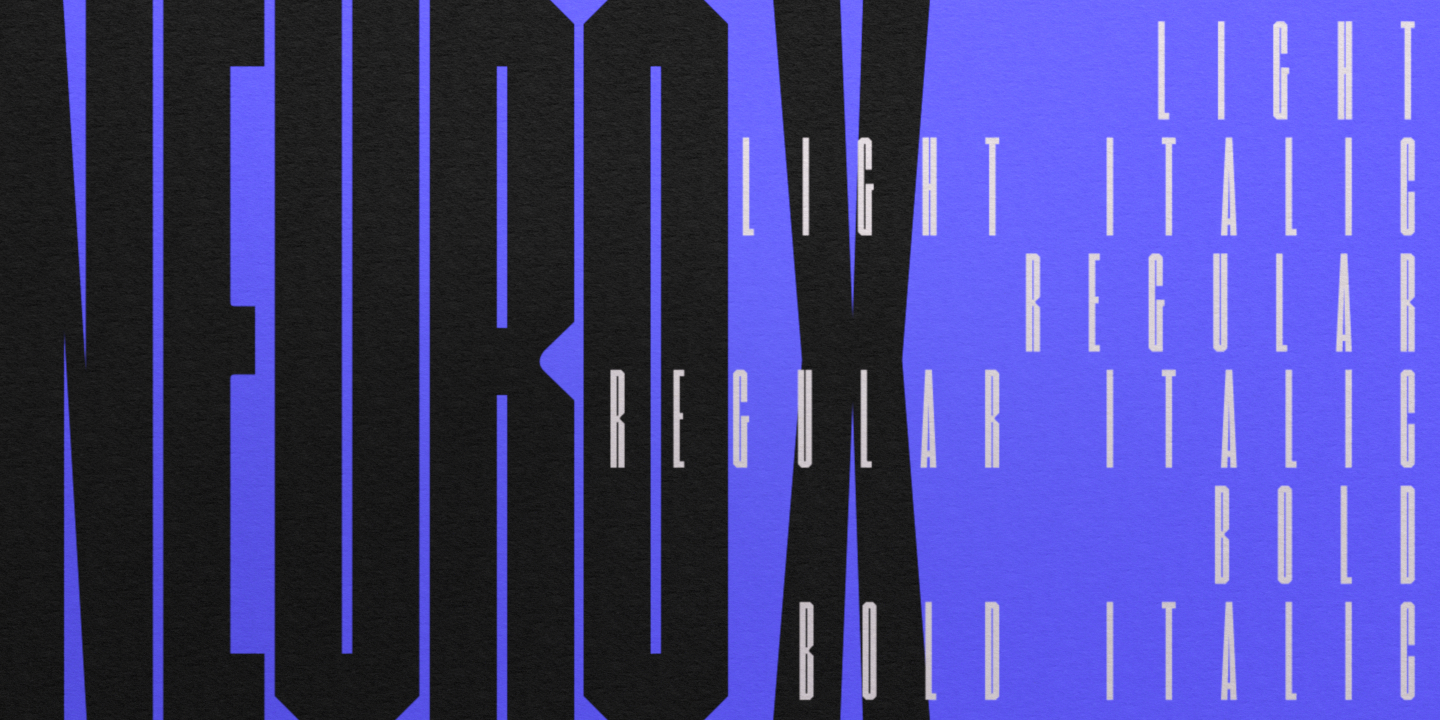
Neuro X Font is a cutting-edge and highly futuristic typeface, perfect for designs that aim to convey innovation, artificial intelligence, and a sleek, digital aesthetic. Its often geometric, modular, and sometimes subtly interconnected forms make it an excellent choice for AI tech branding, science fiction media (films, games), data visualization, and cybersecurity interfaces. Imagine it gracing the display of an advanced holographic projection, providing a high-tech and precise feel to robotics company logos, or adding a cool, intelligent look to virtual reality environments. This font is also superb for scientific research publications, futuristic user interfaces, and any project where a sophisticated, intelligent, and forward-thinking visual identity is key. It doesn't just display text; it processes information with an undeniable sense of high-tech precision.
What makes Neuro X Font so exciting is its remarkable ability to embody the essence of advanced technology and cognitive processes. It possesses a distinctive character that feels both highly organized and subtly complex, often hinting at neural networks or digital pathways. This unique design makes it a fantastic choice for designers looking to infuse their projects with a sense of innovation, analytical prowess, and a truly modern, intelligent aesthetic. It’s a font that speaks with a precise, almost synthetic voice, making it ideal for brands and content creators who want to convey intelligence, futuristic vision, and a sophisticated approach to technology. Its structured appeal can make any message feel more impactful and visually groundbreaking.
The Neuro X Font family, given its often specialized and impactful design, might not feature the extensive weight variations seen in more traditional typefaces. However, it typically offers different styles or complementary elements that enhance its unique aesthetic and provide creative flexibility. You might find variations such as:
• Neuro X Regular (the primary, distinctive style)
• Neuro X Bold (for a stronger presence)
• Neuro X Light (for a more ethereal, minimalist feel)
• Neuro X Monospace (if a fixed-width version is available for coding/data)
• Neuro X Glitch/Distorted (if designed with a digital error aesthetic)
These variations empower designers to maintain a consistent thematic aesthetic while adding depth and visual punch to their compositions. The availability of Neuro X Font Free Download offers an excellent opportunity to explore its unique blend of futuristic design and intelligent precision for your personal design ventures.